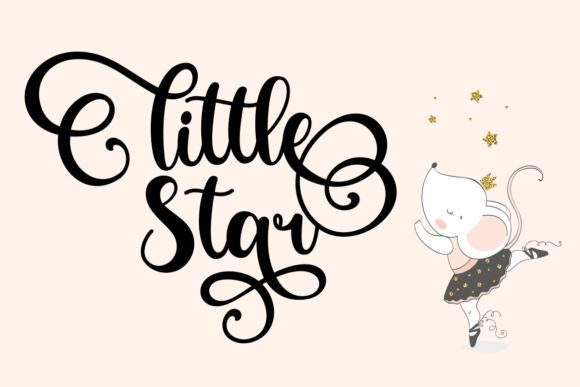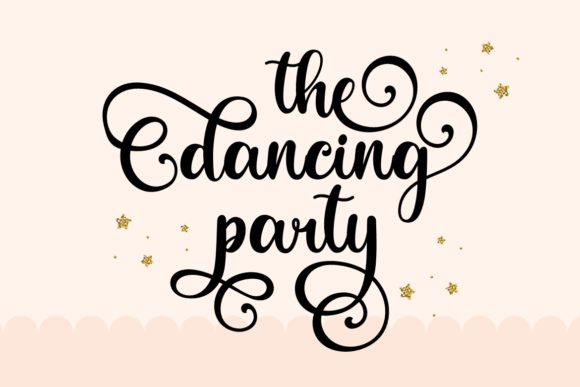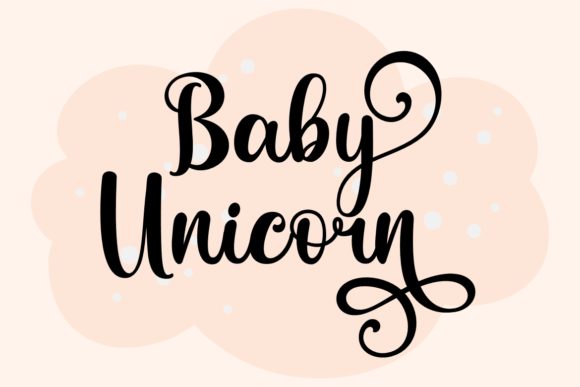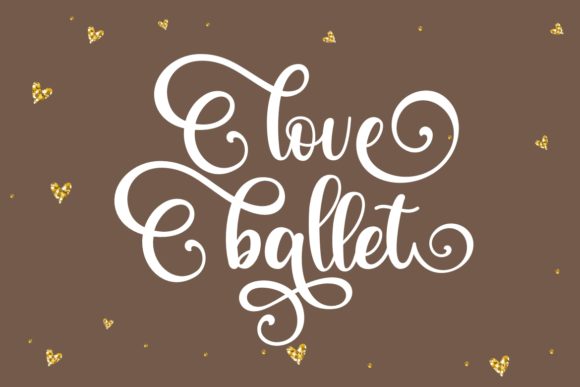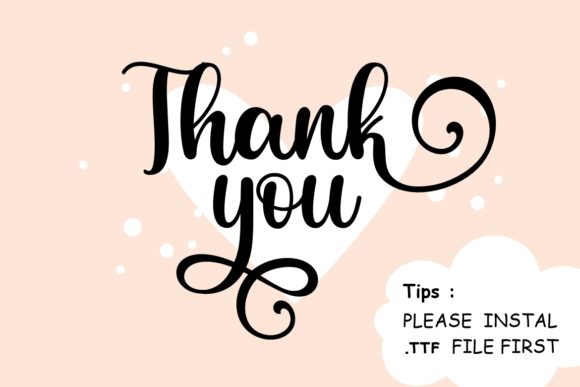
Balerina Font: Elevate Your Designs with Elegance and Style
Are you a designer or crafter looking for a font that exudes elegance and sophistication? Look no further than the Balerina Font. This stunning handwritten font is carefully crafted to become a true favorite among designers and crafters alike. With its versatility and PUA encoding, Balerina Font is perfect for a wide range of projects, from logos and wedding invitations to headings, t-shirts, and more.
What Makes Balerina Font So Special?
Balerina Font is an elegant and stylish handwritten font that is designed to add a touch of sophistication to any project. Its carefully crafted letters and swashes make it perfect for designs that require a high level of elegance and refinement. Whether you’re creating a logo, wedding invitation, or social media graphic, Balerina Font is sure to impress.
One of the best things about Balerina Font is its versatility. This font can be used for a wide range of purposes, including:
- Logos: Create a stunning logo for your business or brand with Balerina Font.
- Wedding Invitations: Make your wedding invitations truly special with this beautiful font.
- Headings: Add a touch of elegance to your headings and titles with Balerina Font.
- T-Shirts: Create custom t-shirts with Balerina Font for a unique and stylish look.
- Letterhead: Elevate your letterhead with this sophisticated font.
- Signage: Use Balerina Font for signage that makes a lasting impression.
- Labels: Create beautiful labels for your products or gifts with this font.
- News: Use Balerina Font for news articles or blog posts that require a touch of elegance.
- Posters: Create stunning posters with Balerina Font that grab attention.
- Badges: Design custom badges with this font for a unique and stylish look.
Balerina Font is PUA (Private Use Area) encoded, which means you can access all of the glyphs and swashes with ease. This encoding allows you to unlock the full potential of the font, making it easy to use and customize. With PUA encoding, you can:
- Access a wide range of glyphs and swashes.
- Easily customize the font to suit your needs.
- Create unique and complex designs with ease.
Why Choose Balerina Font?
There are many reasons why Balerina Font stands out from the crowd. Here are just a few:
- Elegant and stylish design.
- Versatile and can be used for a wide range of projects.
- PUA encoded for easy access to glyphs and swashes.
- Perfect for designers and crafters who want to add a touch of sophistication to their designs.
In conclusion, Balerina Font is a stunning handwritten font that is perfect for designers and crafters who want to add a touch of elegance and sophistication to their designs. With its versatility, PUA encoding, and elegant design, Balerina Font is sure to become a true favorite among designers and crafters alike. Whether you’re creating a logo, wedding invitation, or social media graphic, Balerina Font is the perfect choice.
Don’t settle for ordinary fonts that lack elegance and style. Choose Balerina Font for your next project and experience the difference for yourself. With its beautiful design and versatility, Balerina Font is sure to take your designs to the next level.